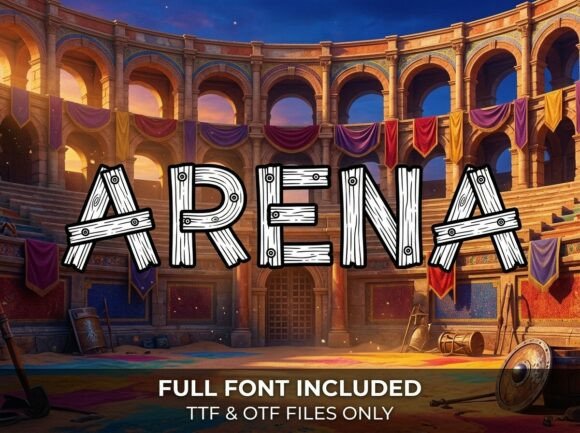
Unleashing the Power of Arena Font: A Designer’s Best Friend
I’ll never forget the design struggle I faced while working on a project for a historical festival promotion. My client wanted a font that could transport their audience to ancient gladiator stadiums, but with a modern twist. I scoured the internet, tried countless fonts, and even experimented with custom typography. That’s when I stumbled upon Arena, a rugged display typeface that captured the “rustic-and-renowned” soul I was looking for.
What Makes Arena Font So Special?
Arena font features bold, architectural letterforms with rhythmic, hand-drawn “timber plank” textures, complete with grain details and iron rivets. This unique design bridges the gap between ancient and modern, making it perfect for independent tabletop gaming identities, boutique woodworking shop logos, historical festival promotions, and high-impact social media headers.
What I Love About Arena Font ✨
- ✅ Unique, handcrafted texture that adds a touch of rustic charm to any design
- ✅ Bold, architectural letterforms that command attention
- ✅ Perfect for designs that require a sense of history and nostalgia
- ✅ Highly versatile and can be used for various design projects, from logos to social media headers
- ⚠️ May not be suitable for body text due to its bold and decorative nature
- ⚠️ Limited use of lowercase letters, which may not be ideal for certain design projects
The Story Behind Arena Font
Arena font was designed with the intention of capturing the essence of ancient gladiator stadiums and modern adventure branding. The designer aimed to create a font that would bridge the gap between history and modernity, with a unique blend of rustic charm and bold architectural letterforms.
| What is the best use for Arena font? | Arena font is best used for designs that require a sense of history, nostalgia, and adventure, such as independent tabletop gaming identities, boutique woodworking shop logos, and historical festival promotions. |
| Can I use Arena font for body text? | While Arena font can be used for body text, it may not be the most suitable choice due to its bold and decorative nature. It’s best used for headlines, titles, and other display text. |
| Is Arena font suitable for digital use? | Yes, Arena font is suitable for digital use, including social media headers, website titles, and online advertising. |